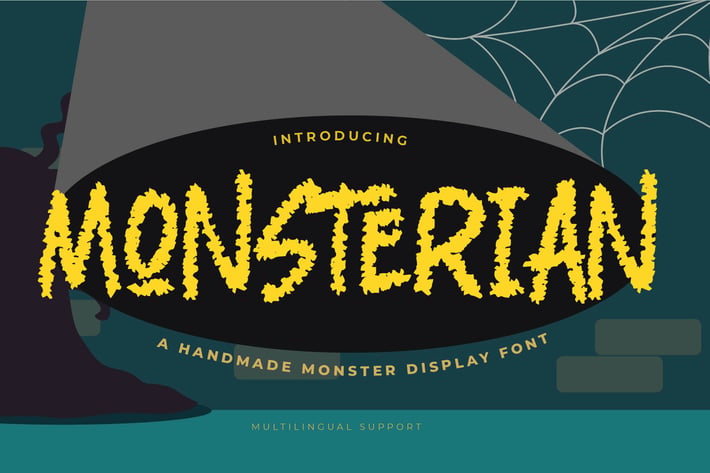
Monsterian - Handmade Moster Display Font
Introducing of our new product Monsterian - Handmade Moster Display Font Font with a natural style and dramatic movement.
Best for horror poster,project that need horror vibes , designs look modern, unique and fun. It’s perfect for labels, quotes, posters, DIY projects, branding, packaging, greeting cards, websites, photography overlays, signs, scrapbooking, tags and so much more! is perfect for homeware designs,branding projects, Logo design, Quotes product packaging, graffiti style with a fun theme very good for graffity poster, flyer, childrenbook, cartoon, comic etc.